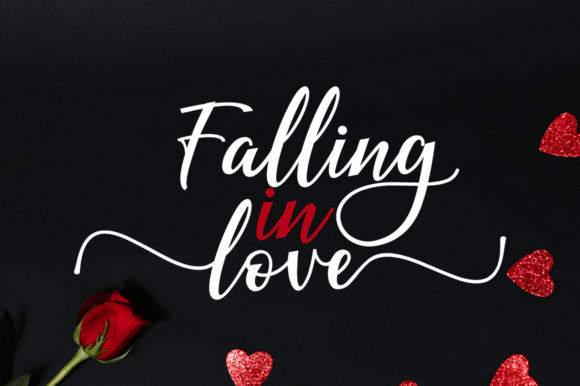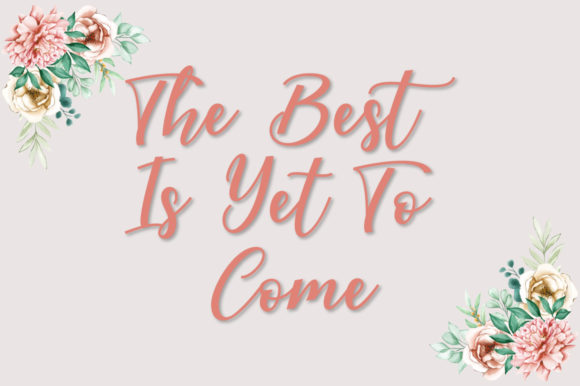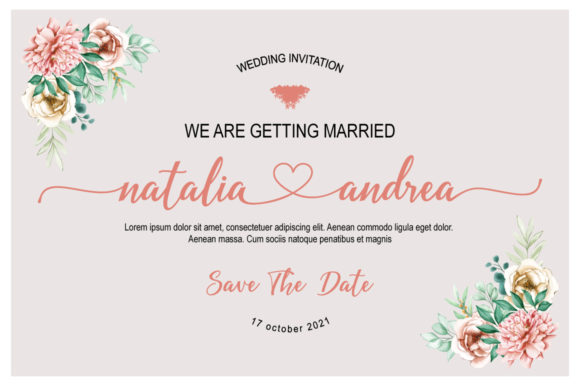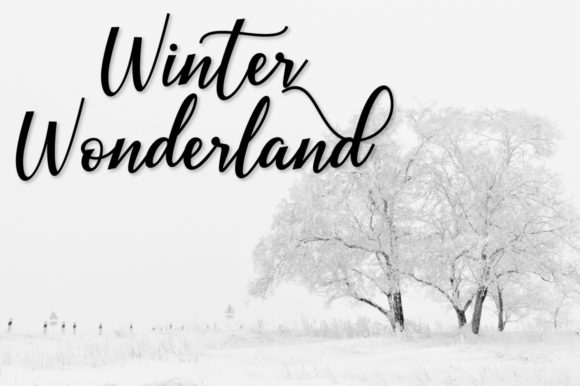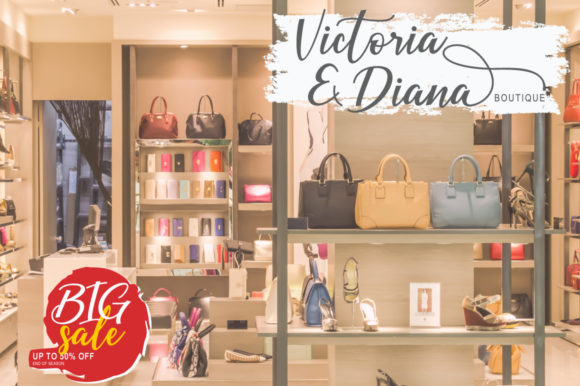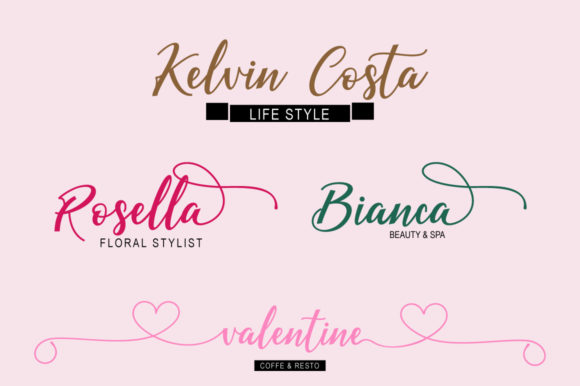
About Falling in Love Font
Falling in Love is a gorgeous and bold handwritten font, crafted to give your headlines and logotype projects a stylish touch.This font is PUA encoded which means you can access all of the amazing glyphs and ligatures with ease!